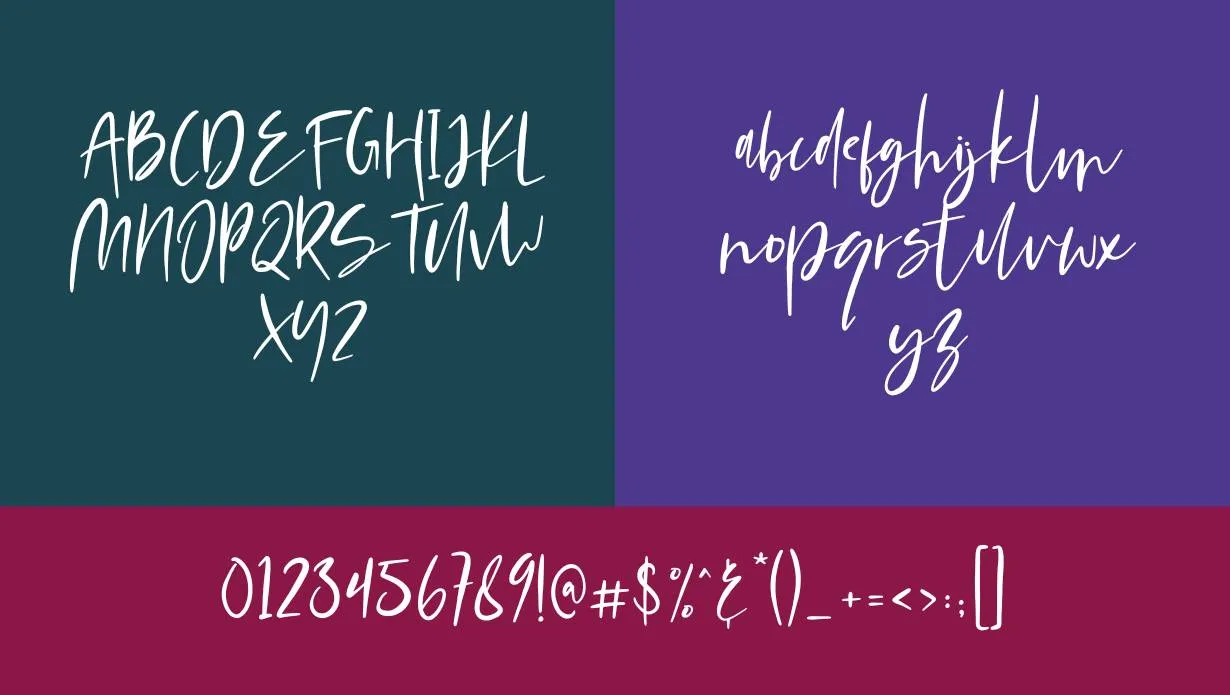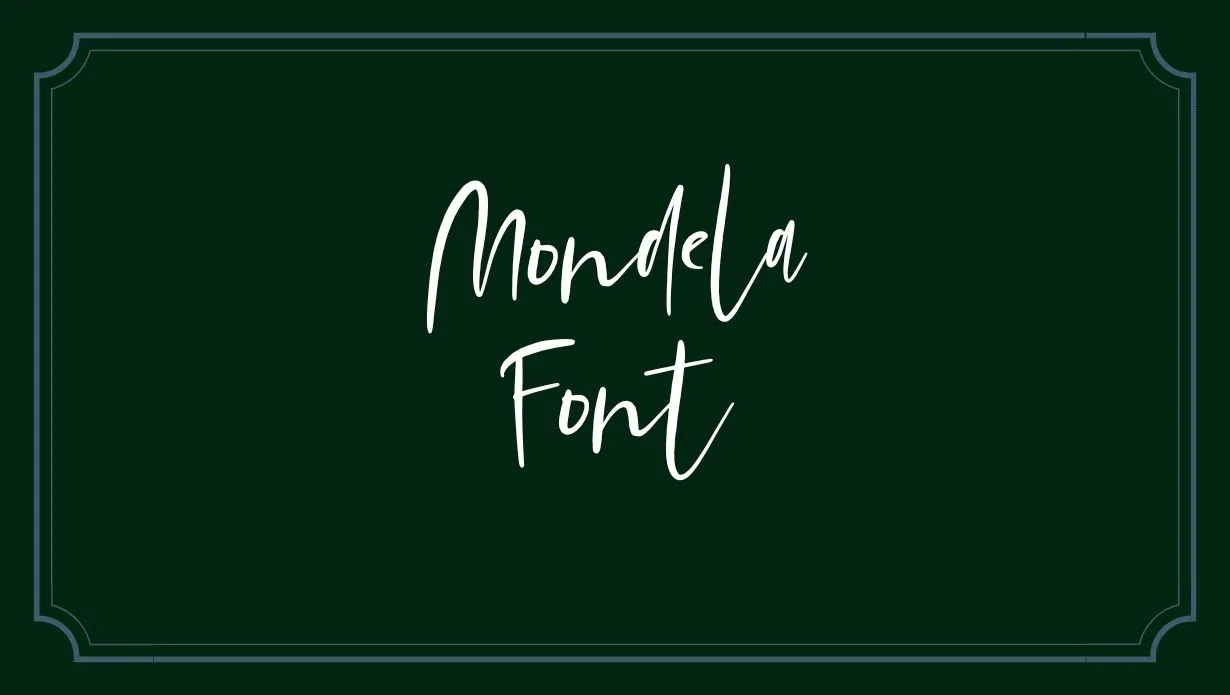
Mondela Font is a script text style that is designed by BrandSemut. The typeface has a wide range of languages. Users will be able to access an innovative typographic feature which will make the designs more versatile.
If you need a special attractive design then you can pair the font with another text style which could be an idealized choice for any project.
All multinational organizations, utilize this font for making different designs for the companies.
Usage of Mondela Font
The font can be used to design gift cards, business cards, wedding cards, and birthday cards. You can use this typeface to create professional postcard designs.
The best pairing style is madina script font. This typeface is additionally best for printing projects like business cards, logos, etc.
You can utilize the typeface for graphical designs, dress printing, and much more.
This style has fabulous characteristics that are perfect to create attractive designs such as logotypes, invitation cards, social media posts, video game designs, book covers, websites, and printing projects.
Mondela Font Family View
Can I utilize Mondela for my logo design?
Yes, you can use this typeface for your logo design because after using this style it will give a fashionable and unique look to your logo.
Where can I use the Mondela Font?
This typeface can be used to design gift cards, business cards, wedding cards, and birthday cards. This style is a good choice for web designing as well.
Who designed the Mondela Font?
Mondela Font is designed by BrandSemut it is a script text style. By using this typeface, you can create stunning content for your project.
Does Mondela Font have good readability?
This font has a significant unique glyph. This typeface is easy to read and can be seen from a distance quickly.